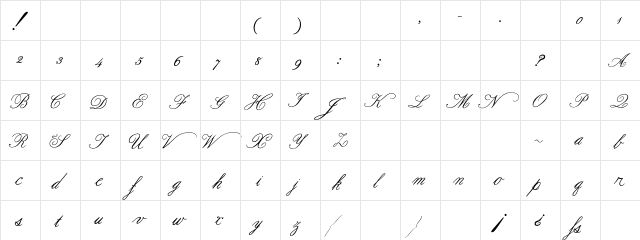
Formal Script Medium
Design Context for Formal Script Typeface
Formal Script flows with the natural rhythm of handwritten lettering, making it ideal for designs that call for warmth and personal expression.
Font Pairing: Combine Formal Script with a simple geometric sans for maximum contrast — the tension between flowing curves and clean structure is a classic typographic pairing.
Pro Tip: Pair Formal Script with a clean sans-serif for supporting text. The contrast between fluid script and geometric structure creates an elegant typographic hierarchy.